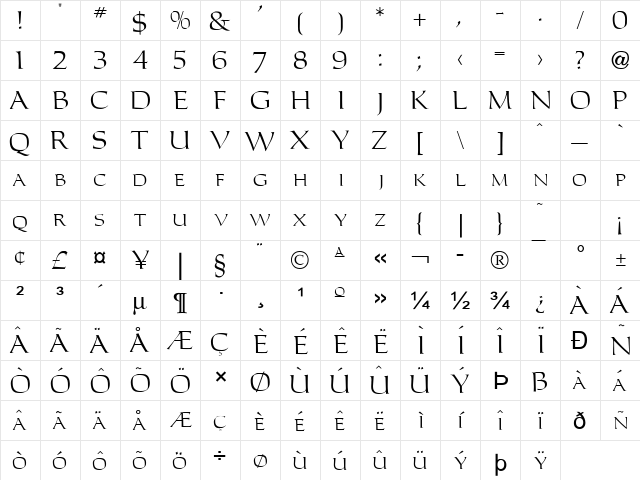
Carla Normal
Design Context for Carla Typeface
Carla takes a measured approach to typography — its balanced proportions and neutral character make it a reliable workhorse for both digital and print work.